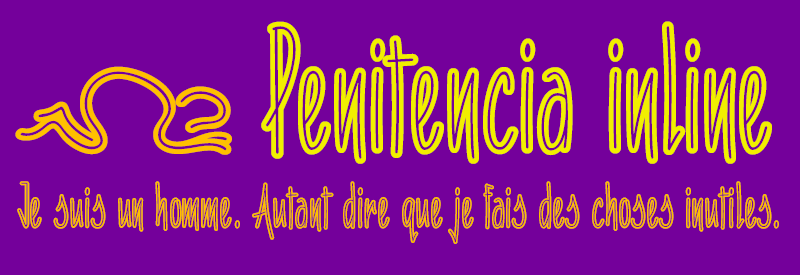
Penitencia is an inline handwritten font, designed to write elegant advertising titles on flyers or general publications. Penitencia inline is condensed to save writing space and includes the Bitcoin symbol. (b# ligatures) ================ Free for personal use only. FULL VERSION & COMMERCIAL LICENSE: http://defharo.com/fonts/penitencia-inline-script/ |